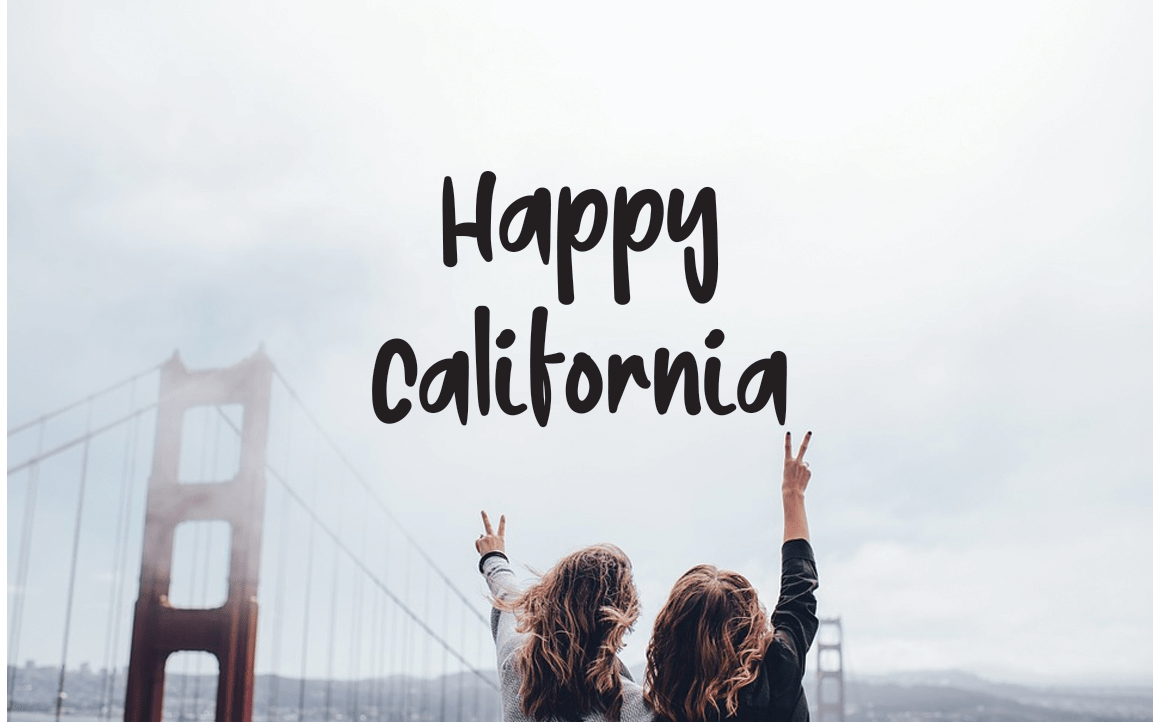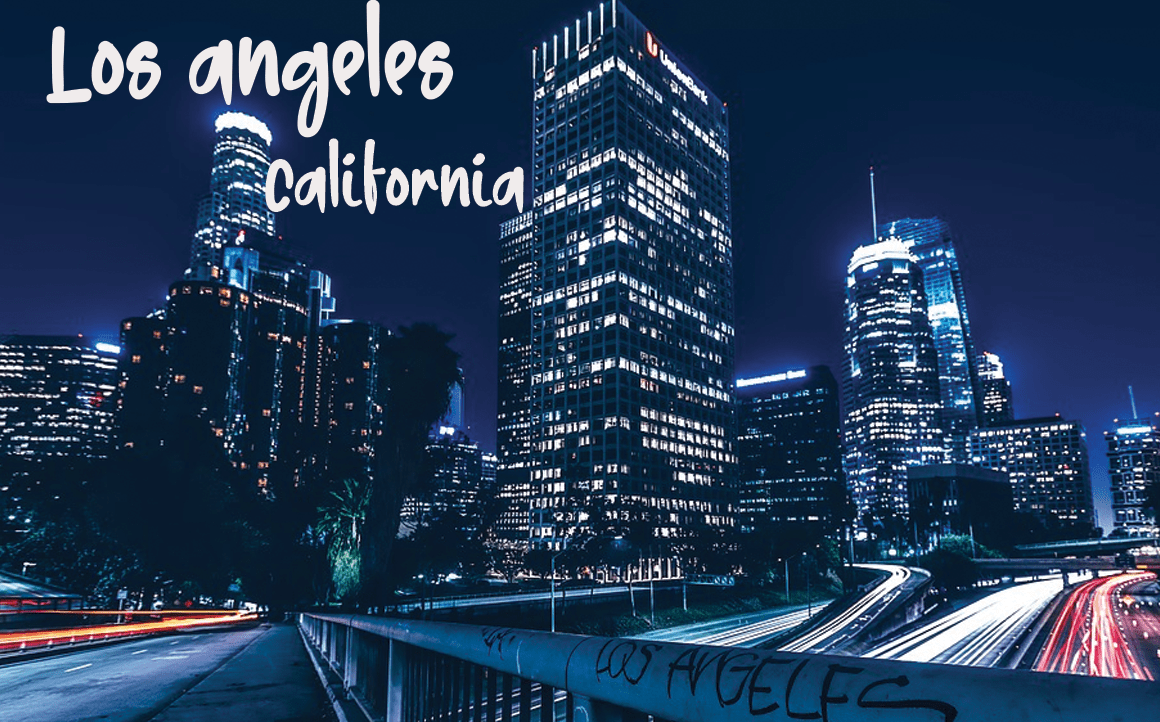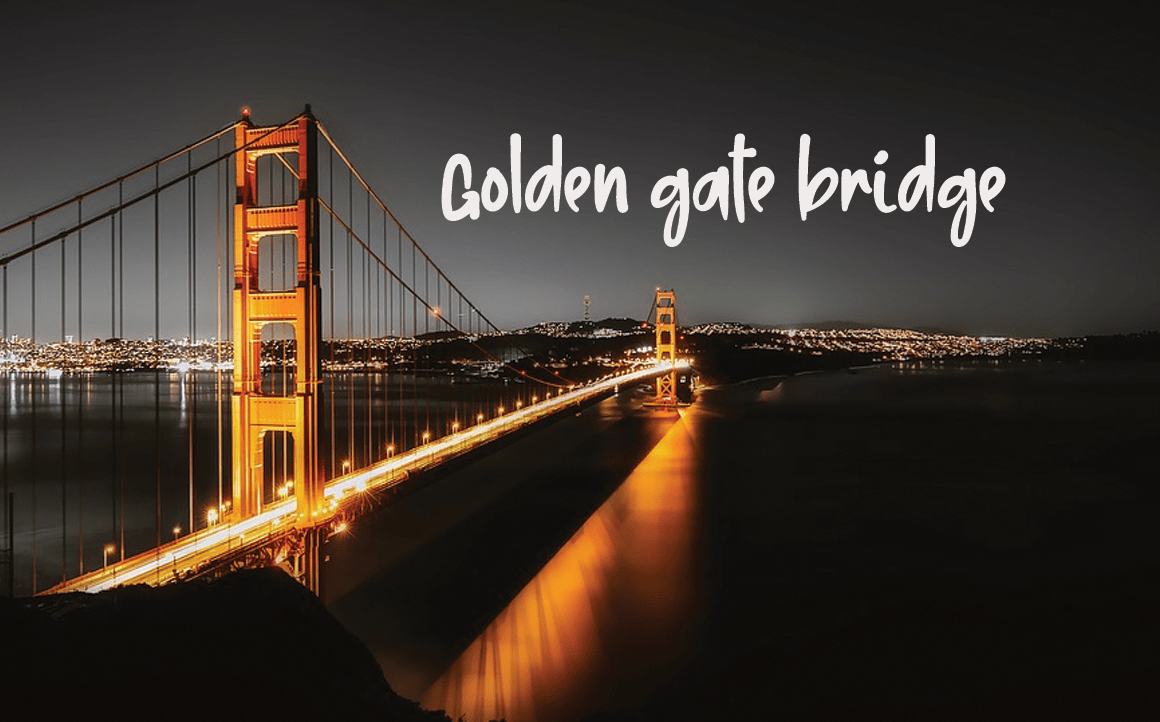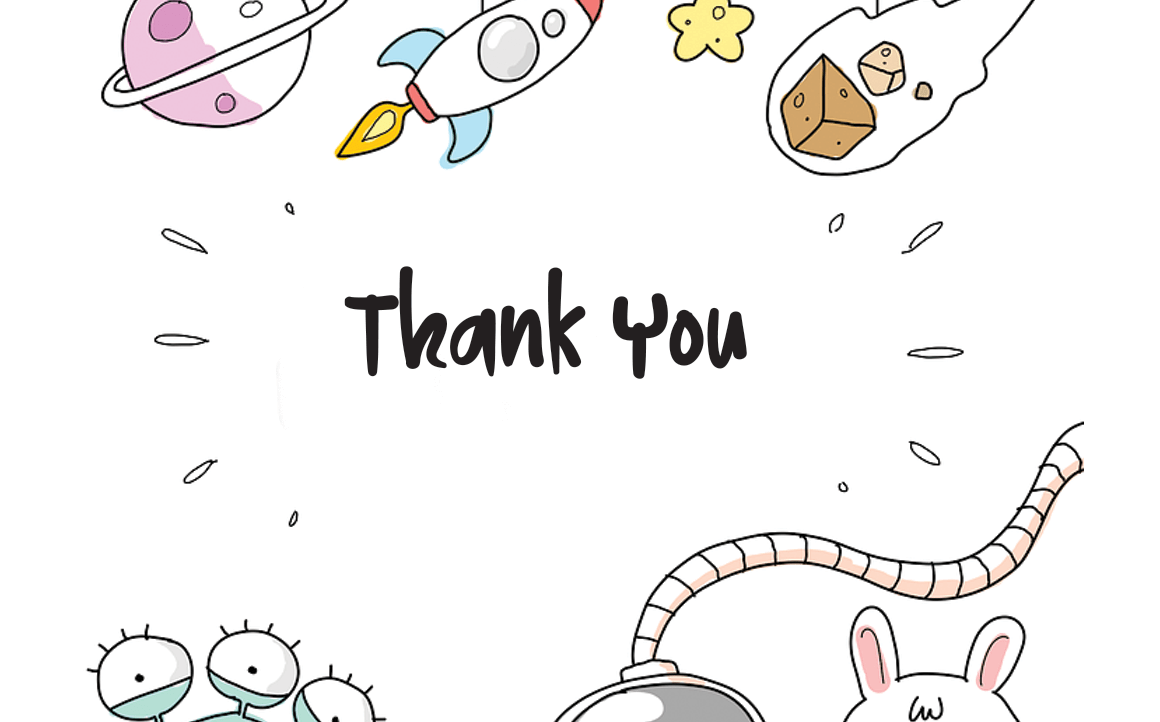
I Love California Font
I Love California Script Font
This is a unique, fun and friendly handwritten font. Whether you’re looking for a font for Instagram or a calligraphy script for a DIY project, this font will turn any creative idea into a true work of art!